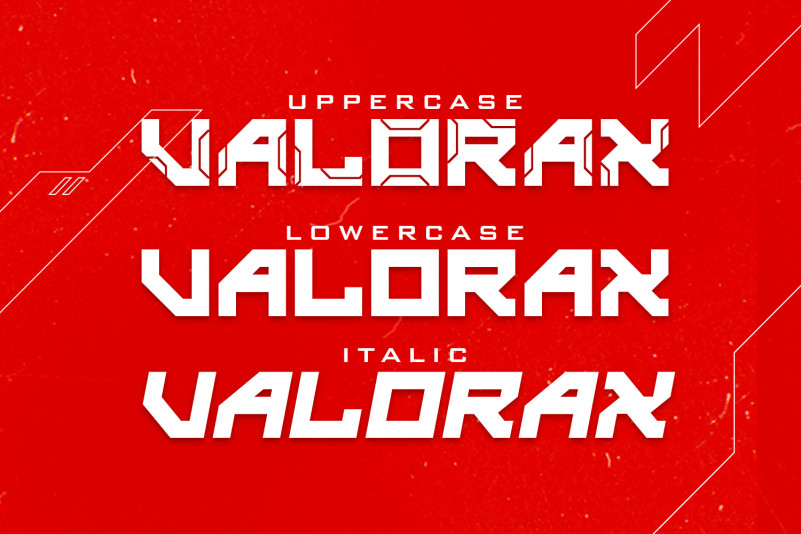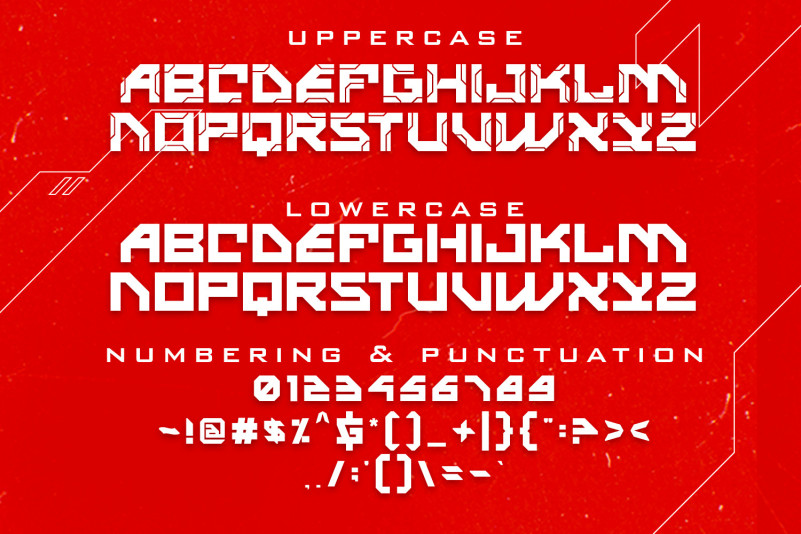
Valorax Display Font is gaming display font is a font with bold and good shape. Really match to make an iconic word mark Logo, Product Logo, Poster movie, games, and many more.